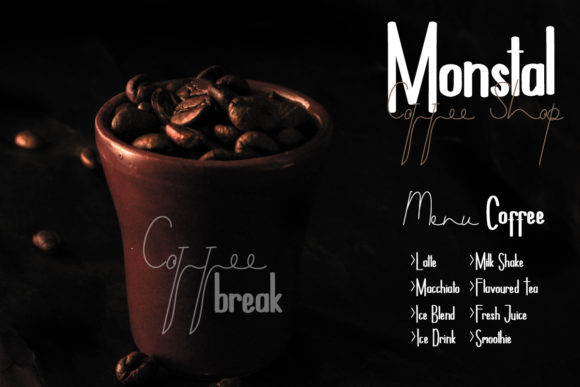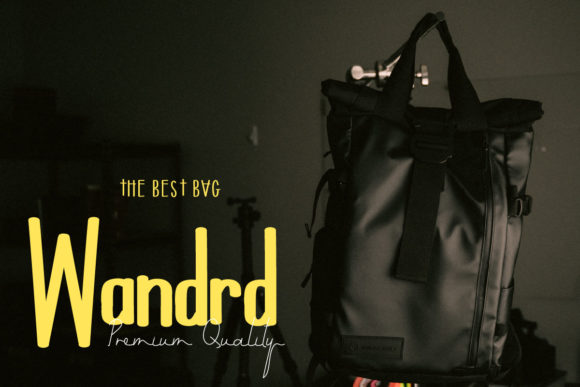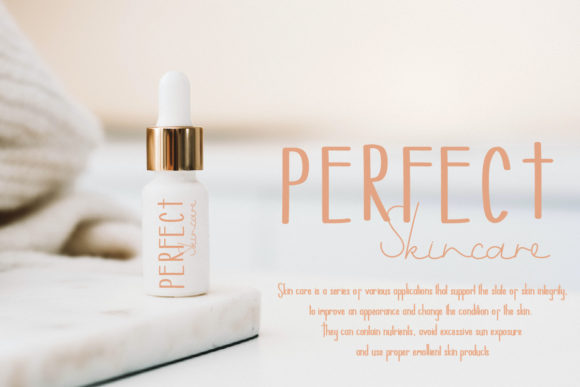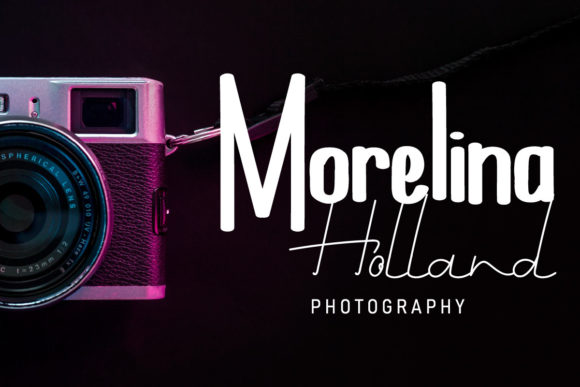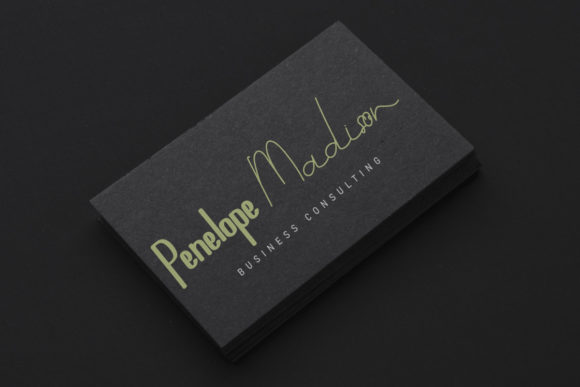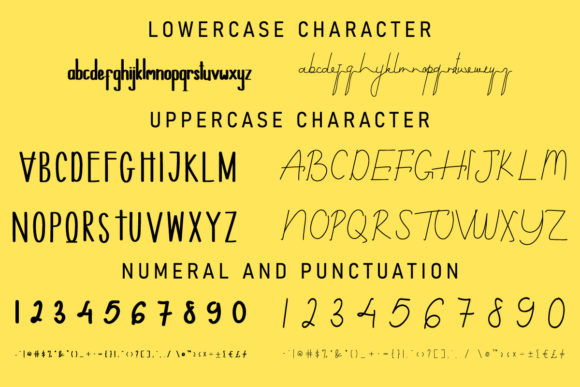
Cooling Down Font: Elevate Your Designs with a Chic and Cheery Touch
Are you on the hunt for a font duo that can add a dash of sophistication and playfulness to your designs? Look no further than the Cooling Down font, a versatile and cool combination of script and sans serif fonts. This dynamic duo is perfect for crafters, designers, and anyone looking to elevate their visual projects with a unique and stylish flair.
The Cooling Down Font Duo: A Perfect Harmony of Style and Versatility
The Cooling Down font consists of two complementary fonts: a beautiful script font and a clean sans serif font. Together or apart, these fonts can add a chic and cheery touch to your crafts, making them ideal for a wide range of design projects. Whether you’re working on a logo, branding materials, social media graphics, or craft projects, the Cooling Down font duo is sure to impress.
Key Features of the Cooling Down Font
- Versatile and adaptable: The Cooling Down font duo can be used in various design contexts, from formal to informal, and can adapt to different styles and themes.
- Script and sans serif combination: The combination of a script font and a sans serif font offers a unique contrast that can add visual interest to your designs.
- Easy to read: The sans serif font is clean and easy to read, making it perfect for body text, while the script font adds a touch of elegance and sophistication.
- Highly customizable: The Cooling Down font duo can be easily customized to fit your design needs, from adjusting font sizes to experimenting with different colors and textures.
Design Ideas Using the Cooling Down Font
The Cooling Down font duo is an excellent choice for various design projects, including:
- Logos and branding: Create a memorable and stylish logo that reflects your brand’s personality with the Cooling Down font duo.
- Social media graphics: Add a touch of sophistication and playfulness to your social media graphics, from Facebook posts to Instagram stories.
- Craft projects: Elevate your craft projects, such as handmade cards, gift tags, and scrapbooking, with the Cooling Down font duo.
- Invitations and events: Create beautiful and stylish invitations, party decorations, and event materials with the Cooling Down font duo.
Tips for Using the Cooling Down Font Effectively
To get the most out of the Cooling Down font duo, consider the following tips:
- Mix and match: Experiment with different font combinations, sizes, and colors to create a unique look that reflects your design style.
- Balance and contrast: Balance the script font with the sans serif font to create visual interest and contrast in your designs.
- Keep it simple: Don’t overdo it – keep your design simple and elegant, and let the Cooling Down font duo take center stage.